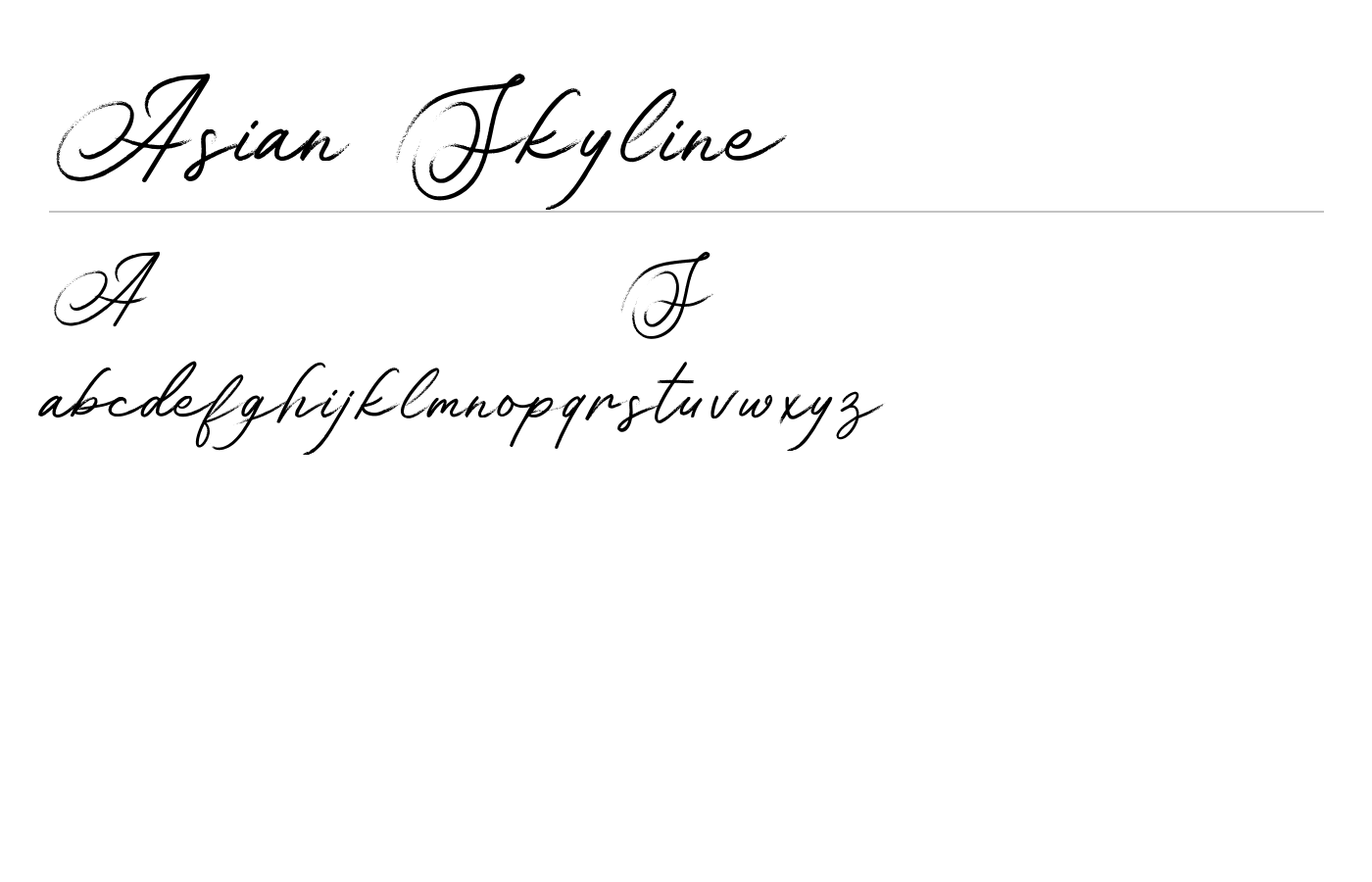
Asian Skyline DEMO is an elegant, script-style font with flowing, handwritten letterforms that convey a sense of sophistication and grace. Its delicate, slightly textured strokes and refined curves make it ideal for projects requiring a personal, artistic touch such as invitations, branding, and luxury packaging. This font works beautifully for headlines or decorative text, adding a stylish and poetic flair to any design.